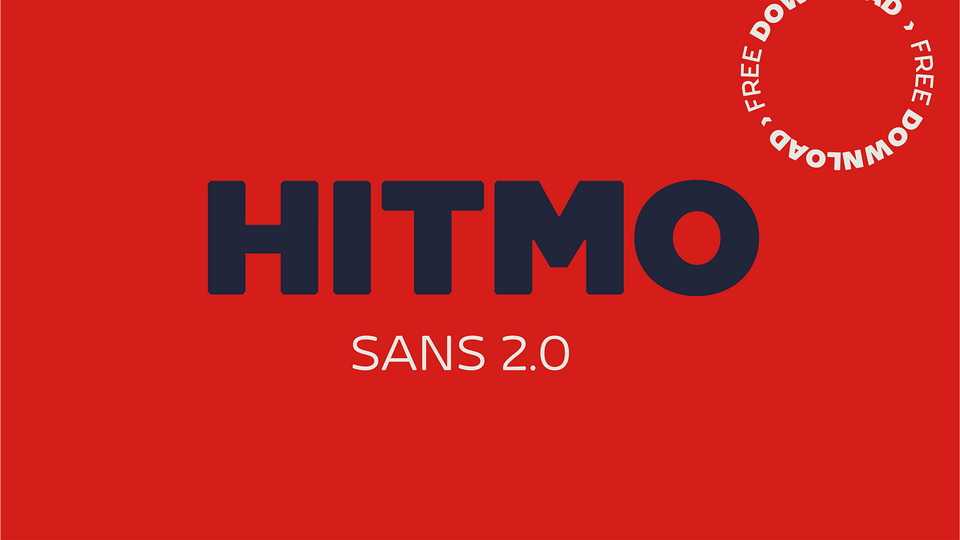
Download Hitmo Sans font, a modern sans serif typeface with geometric forms and sharp elements. Hitmo Sans is a versatile typeface, ideal for logos, titles and even texts.
Designer: Julio Cesar Rodrigues